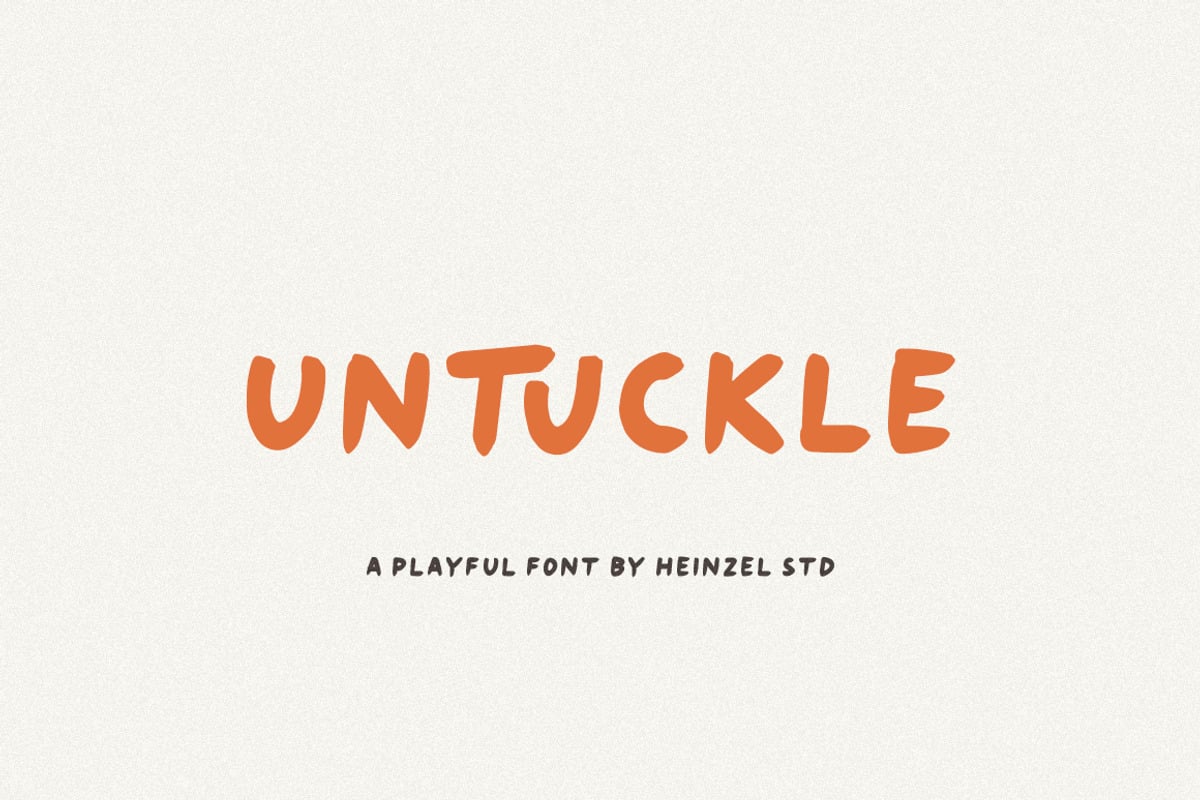
Untuckle Playful Font
Untuckle is the playful handwritten font that brings warmth, whimsy, and authenticity to every design it touches.
With its free-flowing strokes and organic character, Untuckle feels genuinely hand-lettered — the kind of typeface that makes logos feel personal, branding feel approachable, and quotes feel alive. Whether you're designing wedding invitations, crafting taglines, or building a visual identity from scratch, this font adapts effortlessly to your creative vision.
Its warm, inviting style ensures your work stands out while keeping the tone genuine and approachable — perfect for projects that need a human touch without sacrificing polish.
Untuckle Features:
- Uppercase and Lowercase characters
- Numerals and Punctuation
- Ligatures and Alternates
- Multilingual Support (21 languages including English, French, Spanish, German, Portuguese, Italian, Dutch, and more)